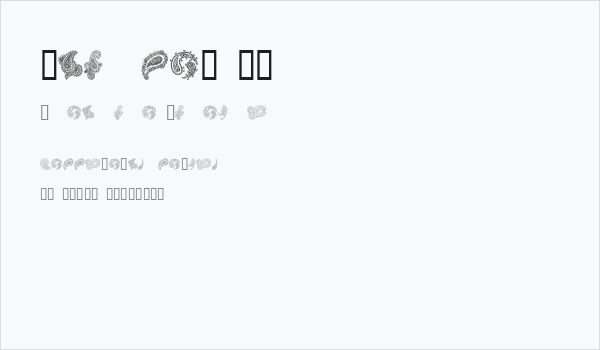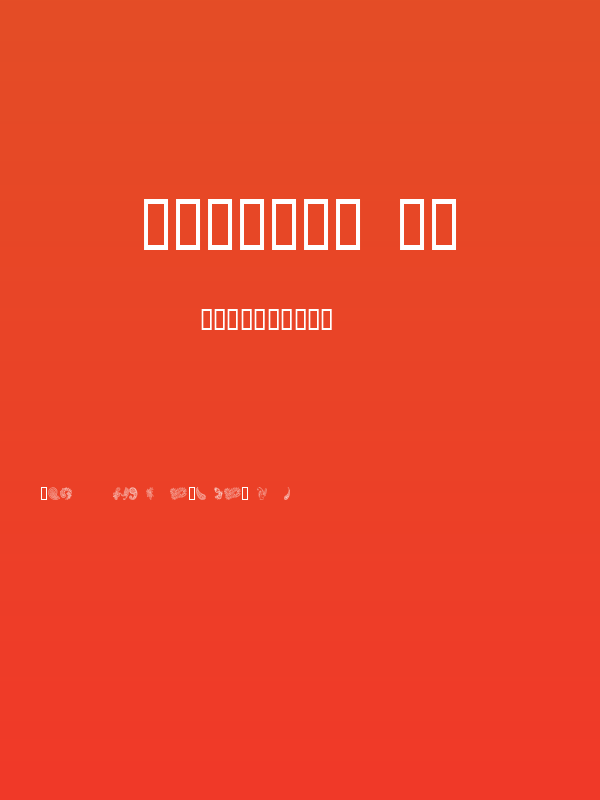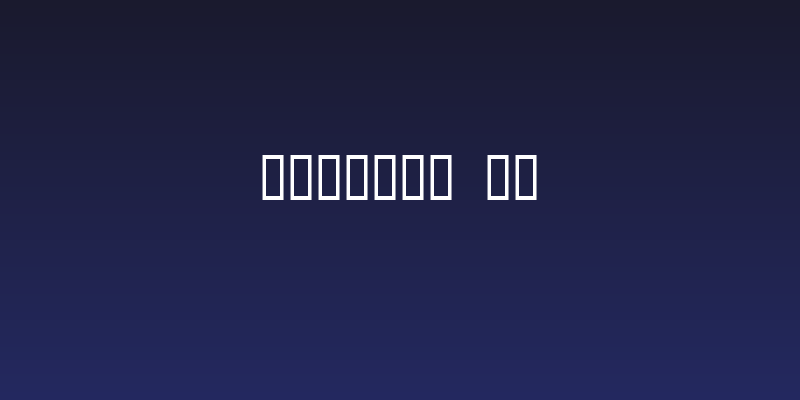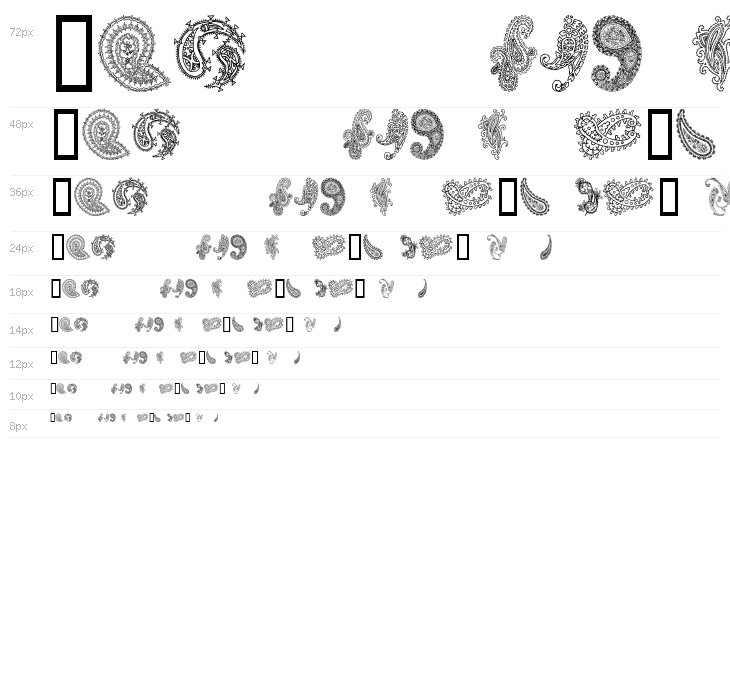
Paisley II Font
Paisley II Description
A decorative dingbat font featuring intricate paisley motifs, each glyph representing a unique ornamental paisley design with detailed linework and flourishes.
| Overall Style | Decorative, Ornamental |
| Use Case | Decorative elements, Borders, Patterns |
| Proposed Projects | Textile patterns, invitations, decorative borders, scrapbooking, branding for fashion or craft businesses. |